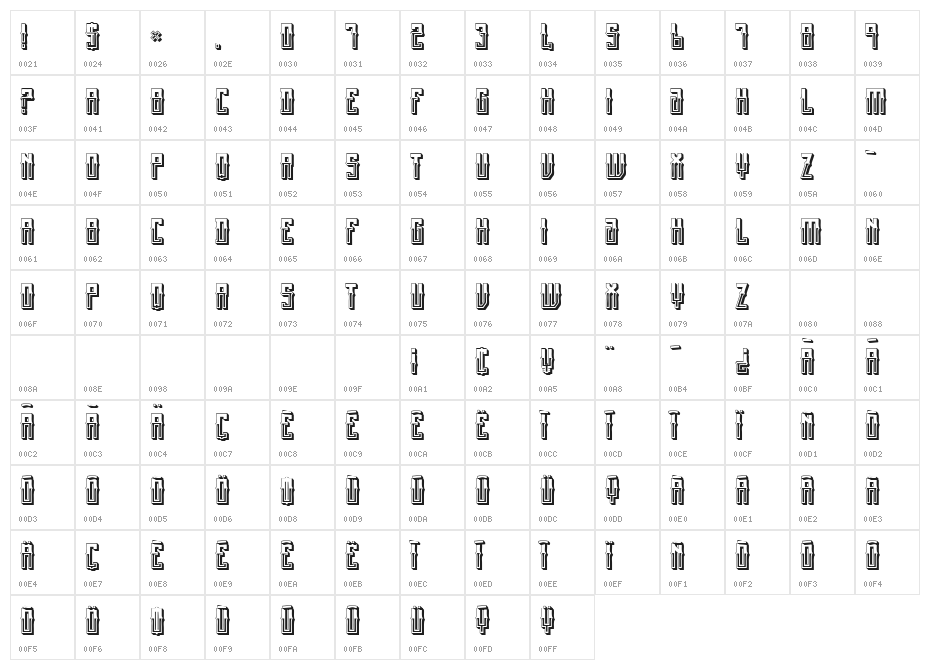
Mexican fiesta Bold Font
Mexican fiesta Bold Description
This font features a bold, decorative style with a distinct three-dimensional effect. The characters are outlined with a shadow that gives them a layered appearance, reminiscent of festive and vibrant designs. The uppercase letters are particularly striking, with sharp angles and a structured form that adds to the overall boldness. The numbers and special characters maintain this cohesive look, making them suitable for eye-catching displays. The font's playful yet structured design makes it ideal for projects that require a strong visual impact.
| Proposed Projects | Ideal for event posters, festive invitations, branding for themed restaurants, or any project needing a vibrant and bold typeface. |